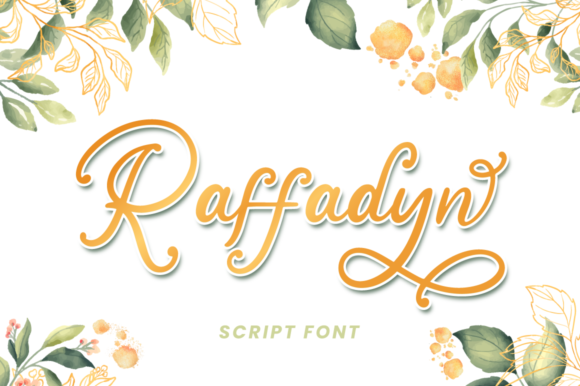
Prepare yourself to be mesmerized by Raffadyn, a script font that exudes an air of whimsical elegance and a relaxed charm. This captivating creation by attypestudio is not merely a font; it's an artistic masterpiece that will transform your designs into breathtaking works of art.
Indulge in the exquisite beauty of Raffadyn, where each letter dances across the page with a graceful fluidity, reminiscent of a gentle summer breeze. Its enchanting curves and delicate flourishes evoke a sense of effortless sophistication, making it the perfect choice for those who seek to add a touch of magic to their creations.
Whether you're crafting enchanting wedding invitations, heartfelt love letters, or captivating social media posts, Raffadyn will effortlessly elevate your words, imbuing them with a timeless charm that will leave a lasting impression. Its versatility knows no bounds, making it an indispensable asset for designers, bloggers, and anyone who desires to make a statement with their typography.
Immerse yourself in the world of Raffadyn, where creativity flourishes and imagination takes flight. Let this extraordinary font ignite your passion for design and guide you towards creating masterpieces that will captivate and inspire. With Raffadyn at your fingertips, the possibilities are endless, and the magic is waiting to be unleashed.